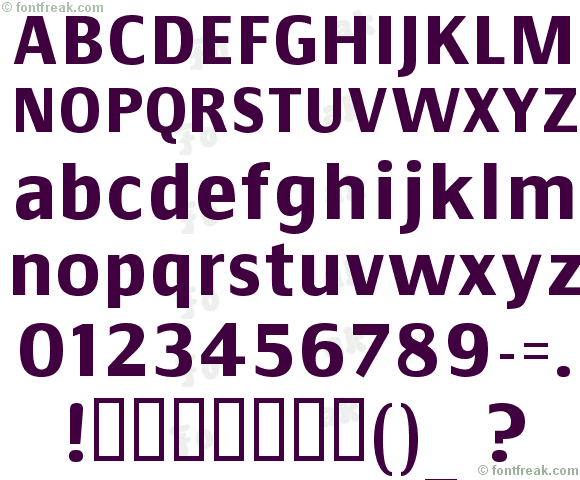
The "Communist" font by Shamrock & Oase is a striking sans-serif typeface that combines boldness with a modern aesthetic. Designed in 1993 by Jeroen Klaver, this font stands out for its clean lines and strong presence, making it a versatile choice for various design projects. The stroke weight is consistent throughout, providing a sturdy appearance, while the minimal contrast adds to its contemporary feel. The character spacing is well-balanced, ensuring readability across different applications.
This font is particularly well-suited for use cases such as political posters, social campaign materials, and digital media graphics, where a strong, impactful message is crucial. Its bold nature also makes it an excellent choice for branding and logos, especially for organizations looking to convey a sense of strength and reliability. Additionally, the Communist font can enhance editorial designs, making headlines pop in magazines or online articles focused on social issues.
The target audience for this font includes graphic designers, content creators, and small business owners who seek a distinctive typeface that can effectively communicate their message. Whether you are designing promotional materials, event flyers, or website headers, the Communist font offers a unique blend of style and functionality.
What sets the Communist font apart is its ability to blend historical significance with modern design sensibilities. As a freeware font, it allows creative professionals to access a powerful tool without any financial barriers, making it an attractive option for anyone looking to make a bold statement. With its unique characteristics and versatility, the Communist font is a valuable addition to any designer's toolkit. For those interested, a Communist font free download is readily available, allowing you to incorporate this distinctive typeface into your projects today.